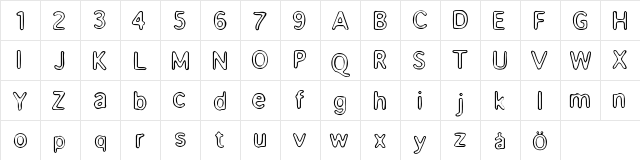
Enemafont Medium
Design Context for Enemafont Typeface
Enemafont is a composed and adaptable typeface that performs quietly and consistently across a wide range of design contexts.